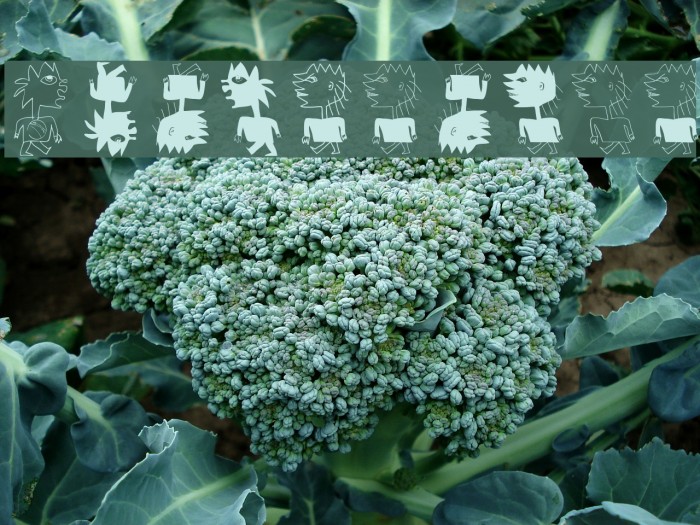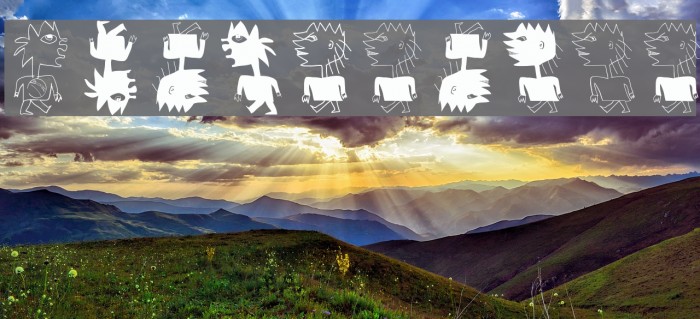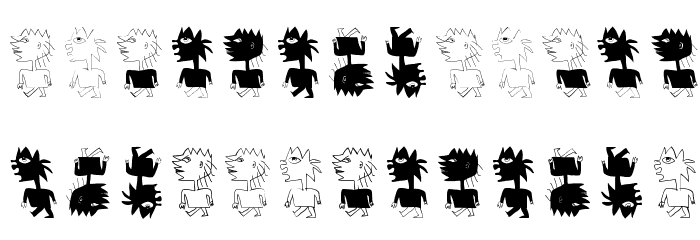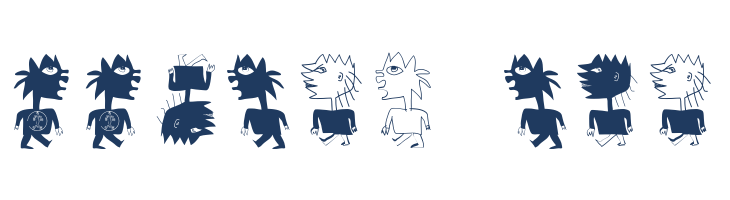
Spontcomic Font
Spontcomic Description
Highly playful and illustrative font where each character is depicted as a cartoon figure with spiky hair and expressive poses, alternating between filled and outline styles, giving a spontaneous, comic-like appearance.
Overall StyleDecorative, Playful, Comic
Use CaseLogos, Headlines, Posters, Children's content
Proposed ProjectsChildren's books, comic strips, playful posters, party invitations, educational materials.